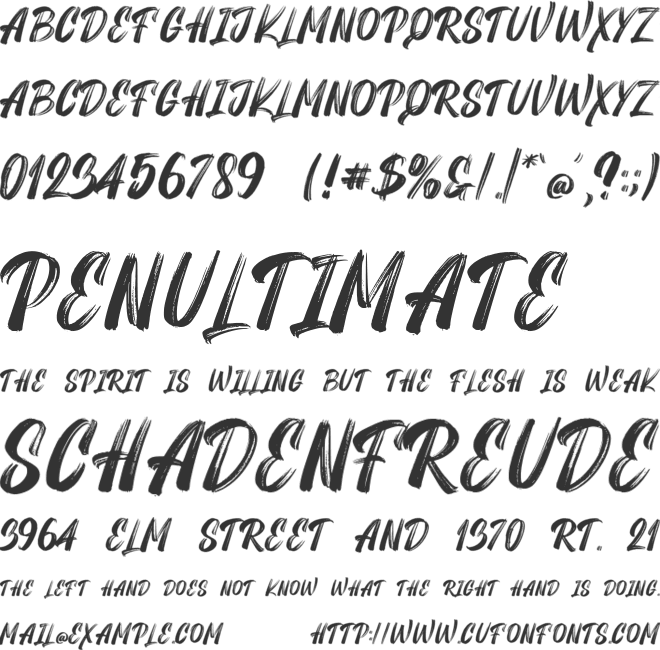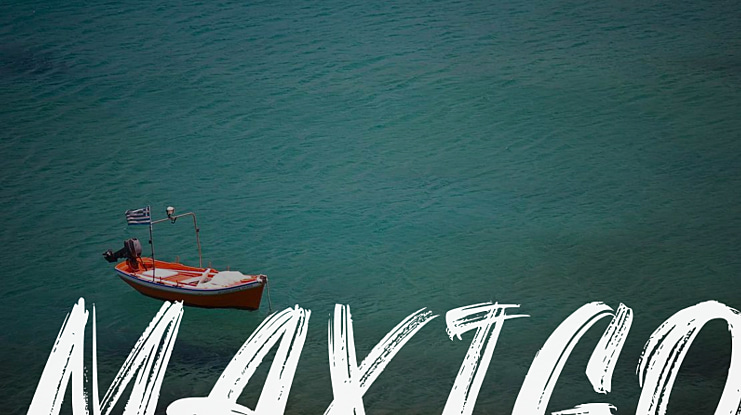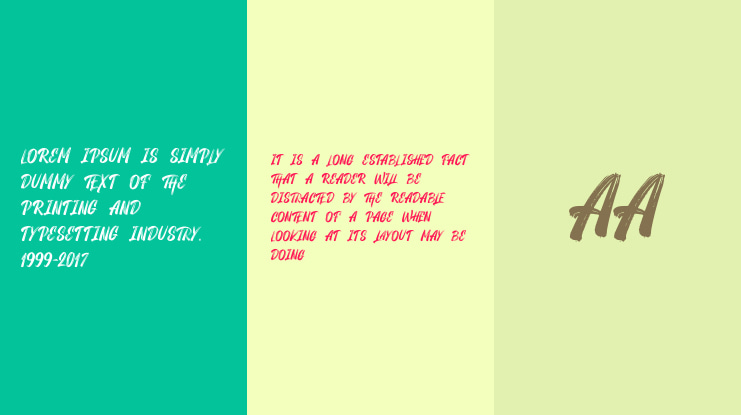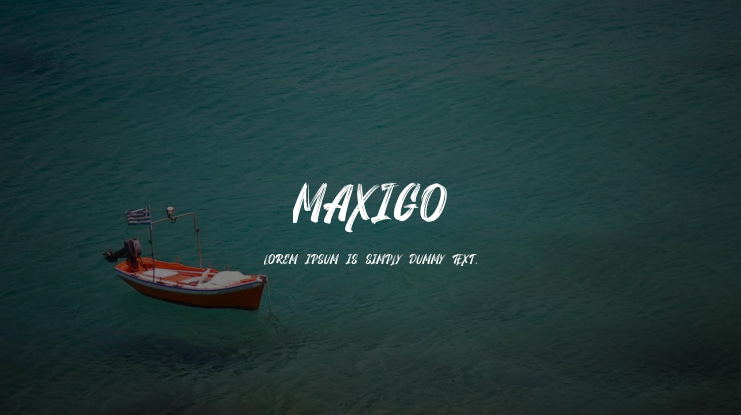
MAXIGO Font
"Maxigo Uppercase Brush Font: A powerful and dynamic typeface that emanates energy and imagination. With its expressive brush strokes and strong uppercase characters, Maxigo brings a unique and contemporary touch to your design projects, making it ideal for headings, titles, branding, packaging, flyers, and logos."